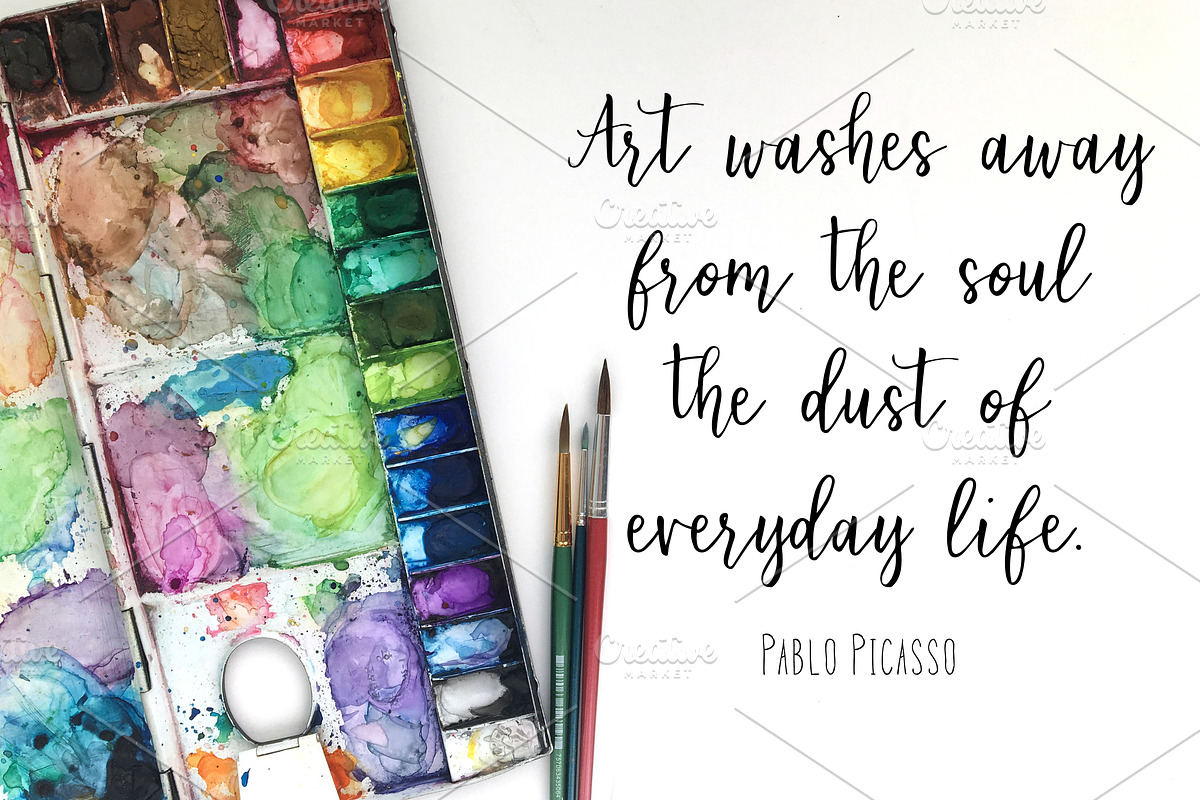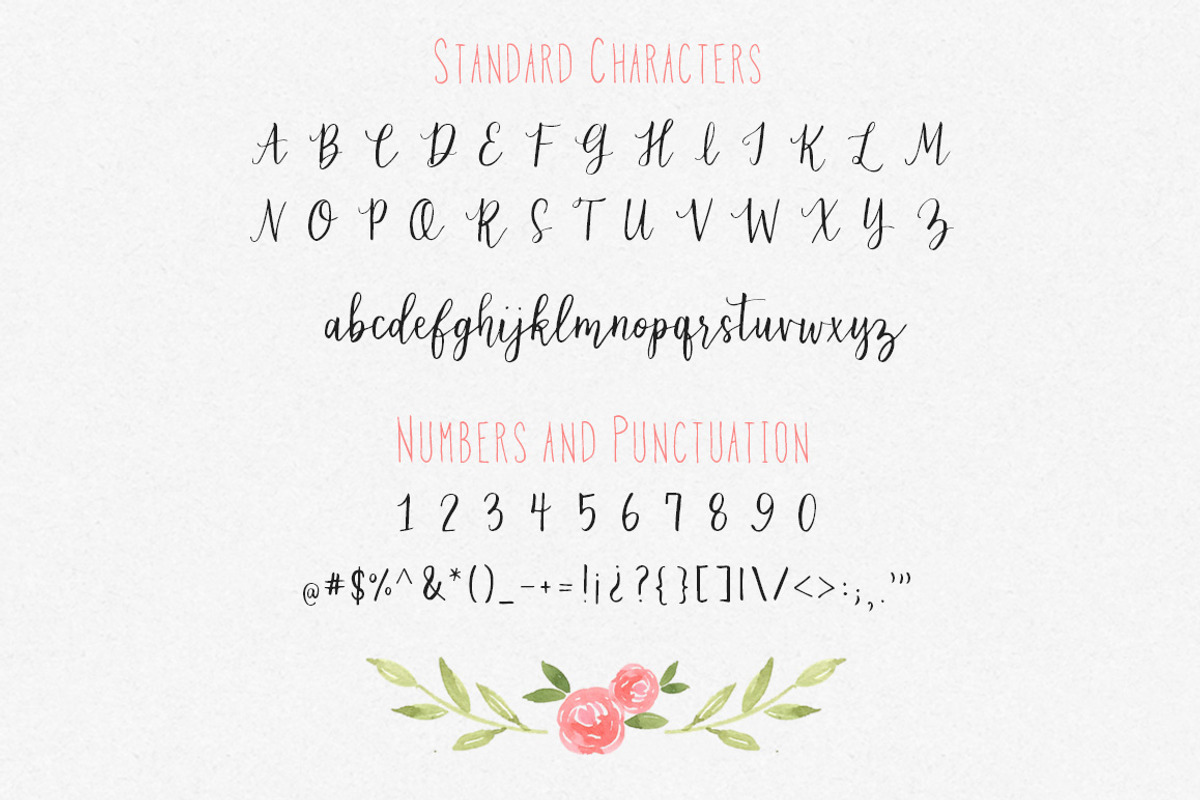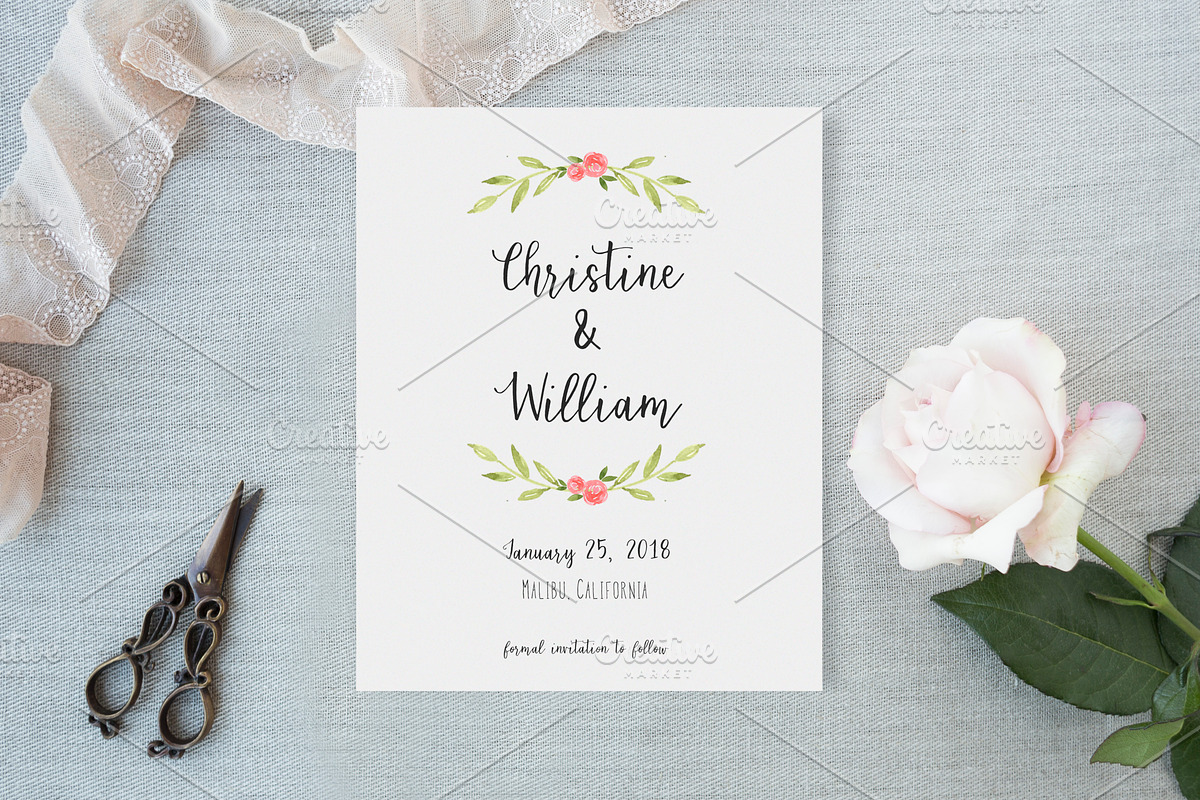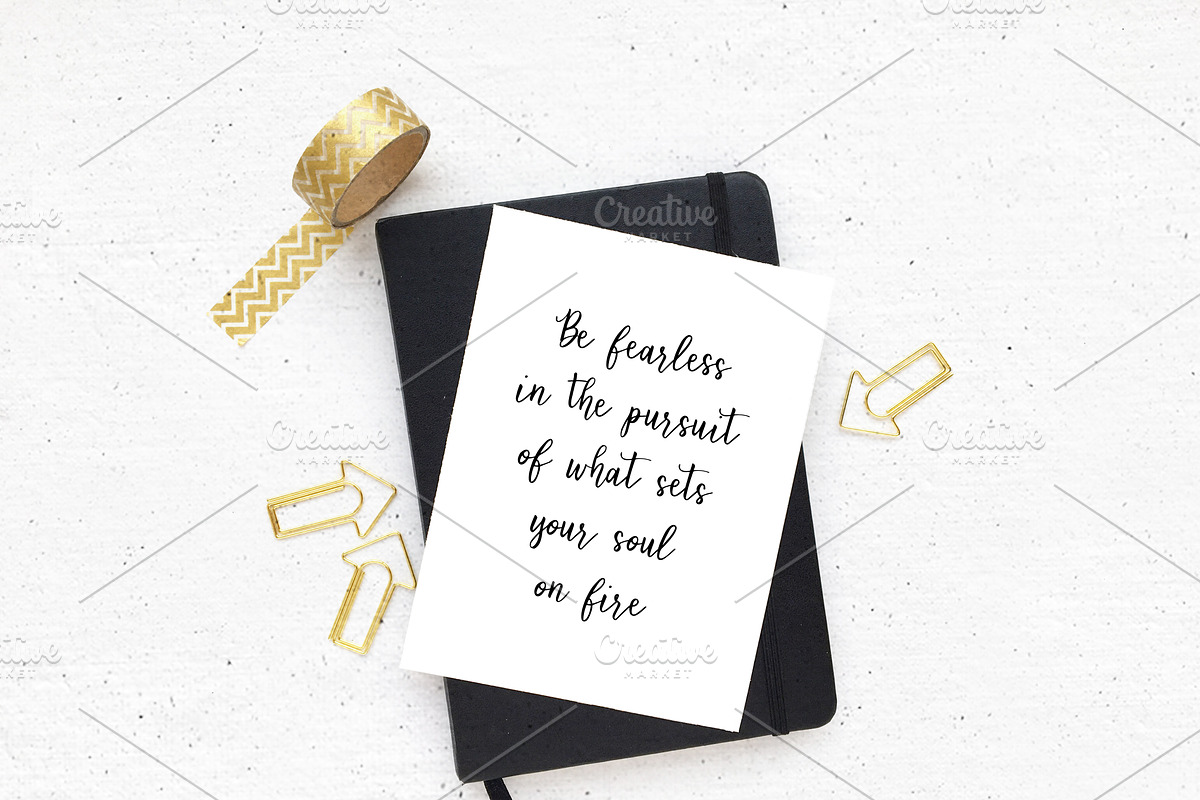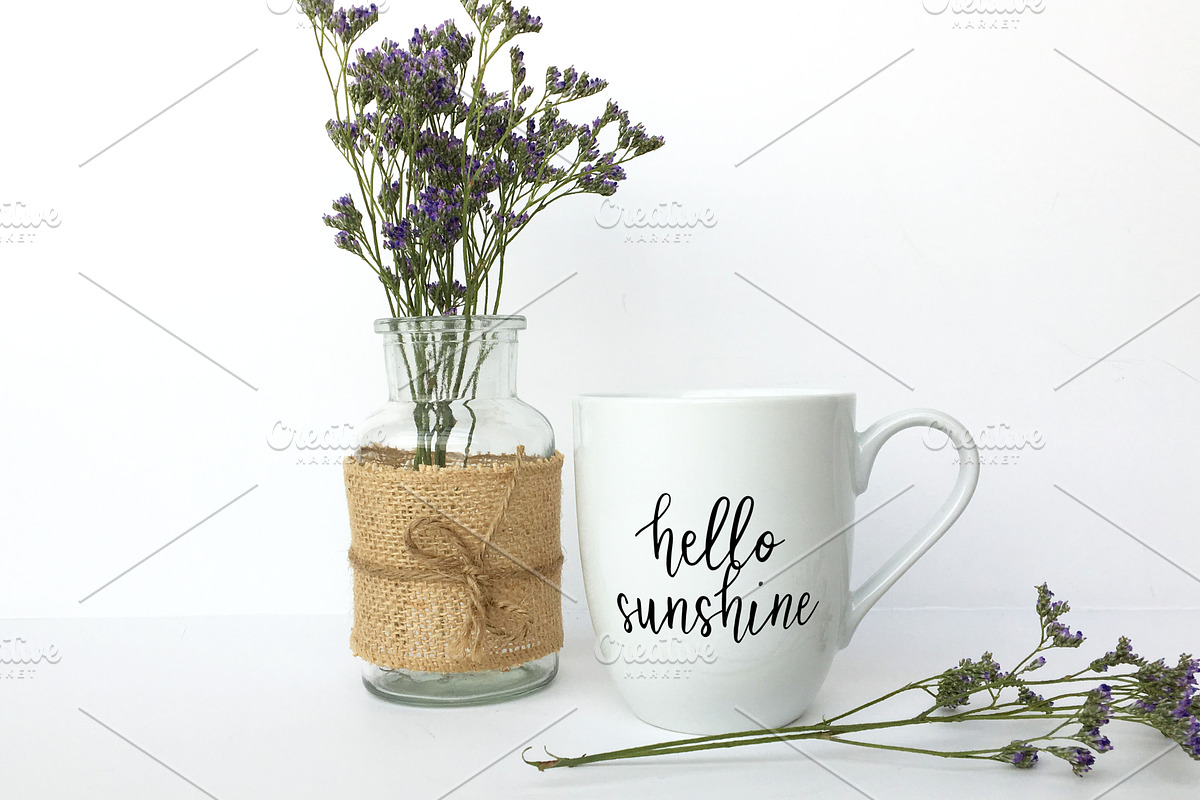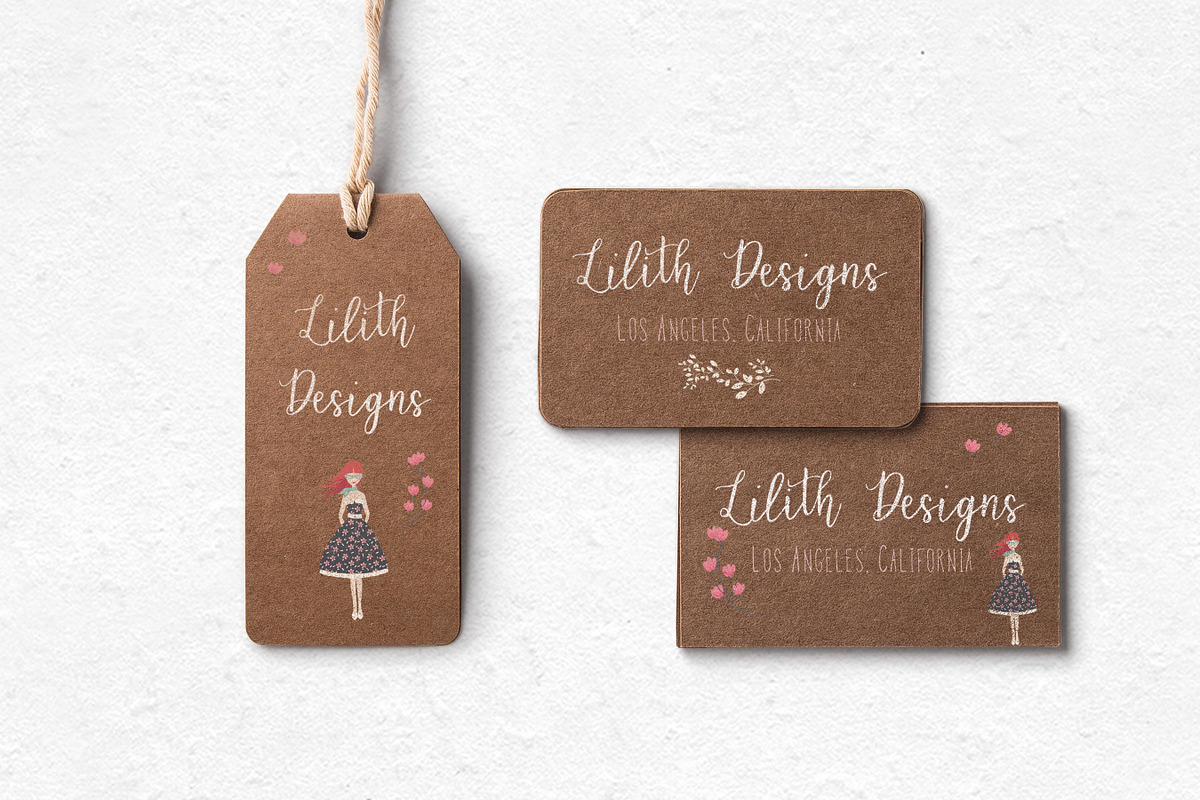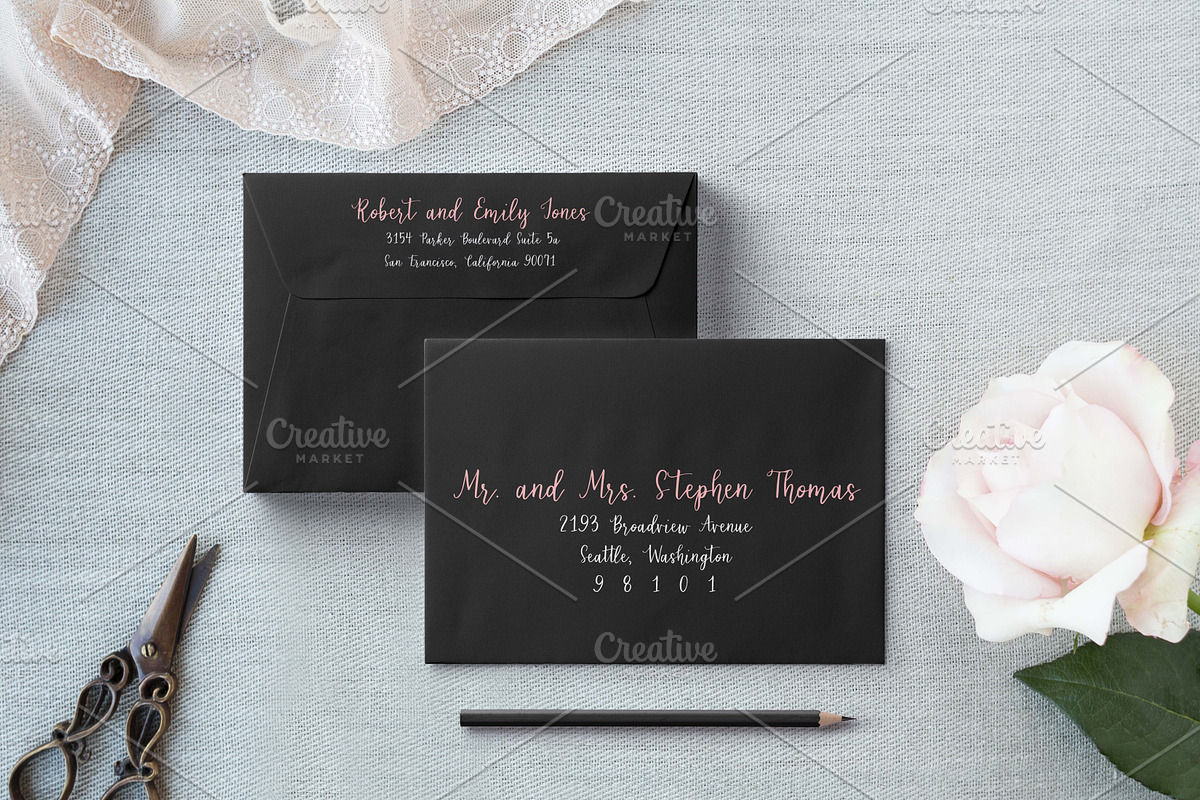
Fiorella Font
Fiorella Font by Jane Yu Designs is a font selected for branding, posters, packaging, typography.
- Fiorella Script
Why Fiorella Font is worth a look
Fiorella Font by Jane Yu Designs fits naturally into Branding, posters, packaging, typography.